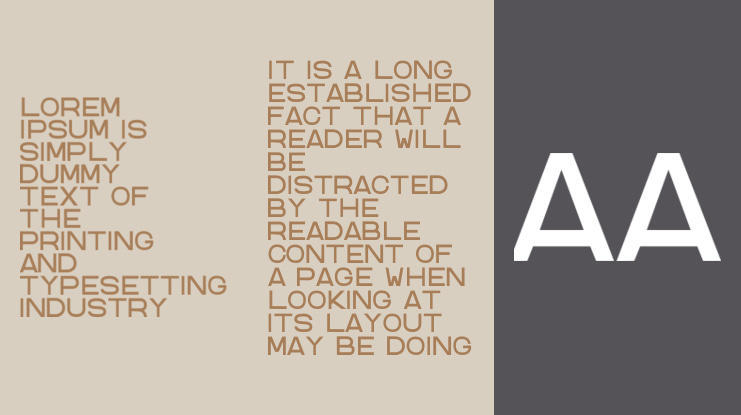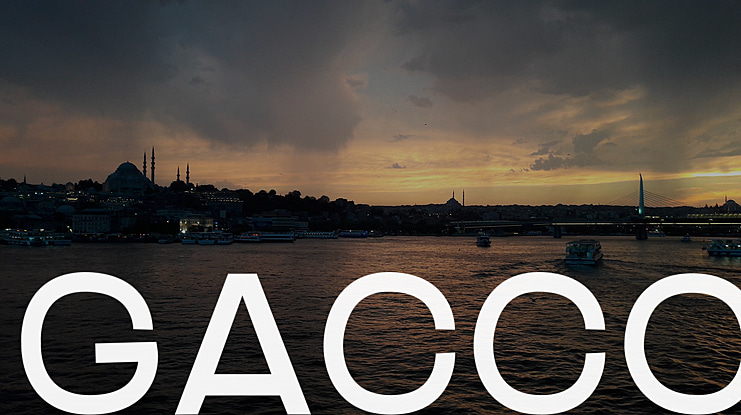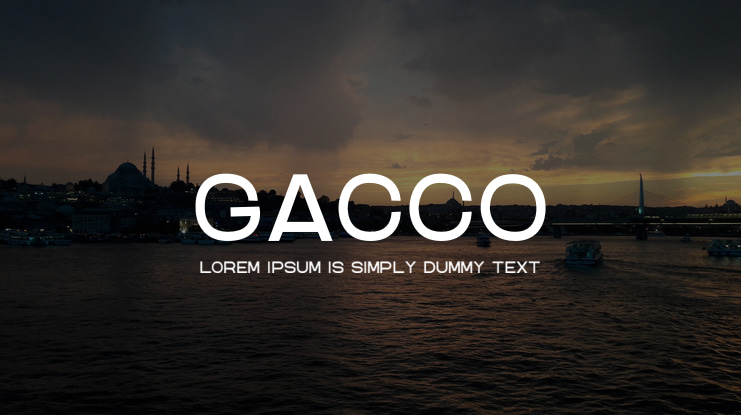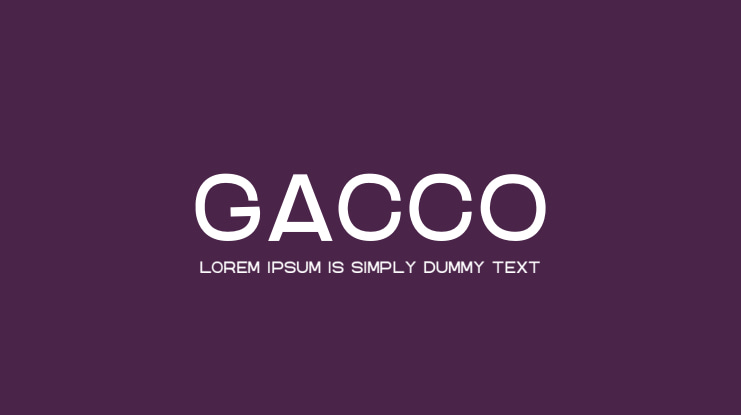
GACCO Font
This is a gentle sans serif typeface with a flexible design and moderate tone influenced by many sans serif typefaces. It is perfectly suited for designing recognizable & modern brands, contemporary packaging, bold statements, websites and so much more!